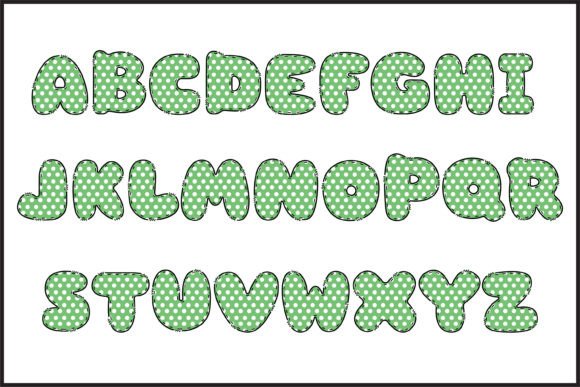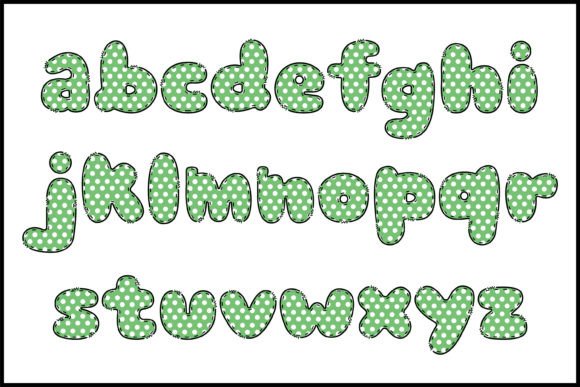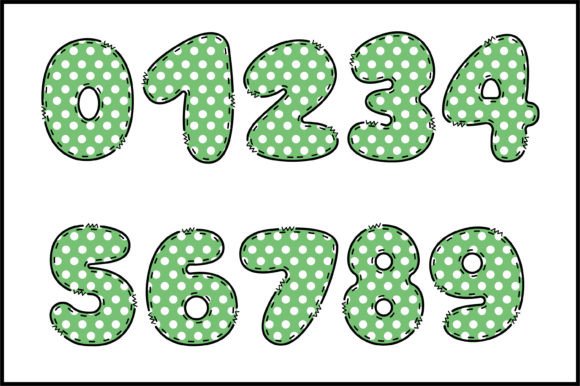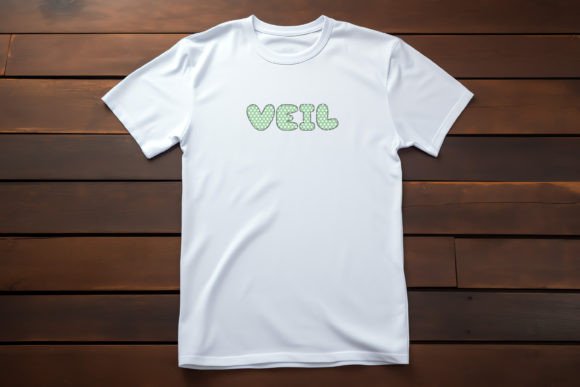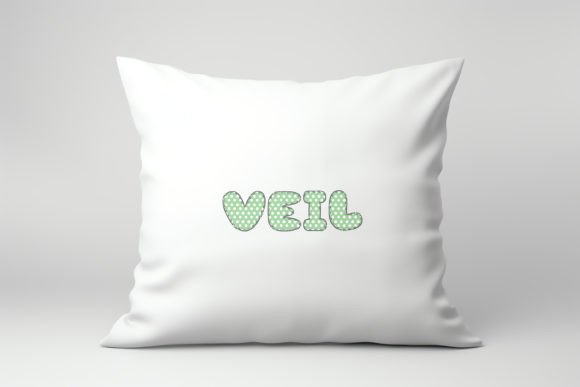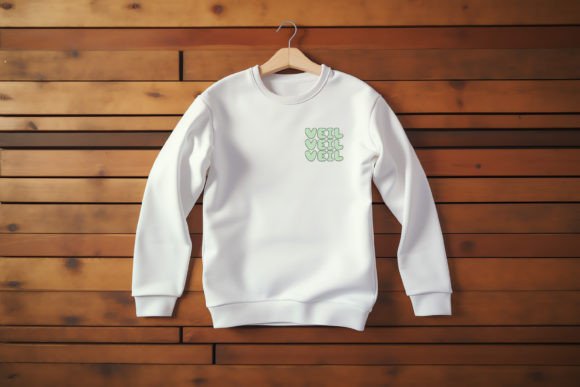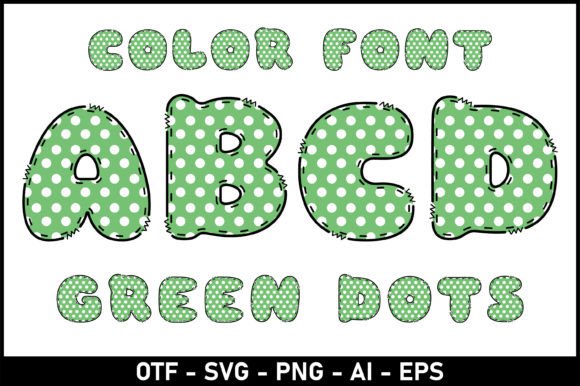
The Playful Charm of Green Dots Font: Elevate Your Designs with Whimsy
In the world of typography, fonts play a crucial role in setting the tone and personality of a design. For designers and crafters looking to add a touch of playfulness and artistic flair to their projects, Green Dots Font is an excellent choice. This delightful font, along with its variants like Red Dots, has become a popular pick for a variety of applications, from children’s books and posters to invitations and greeting cards.
What is Green Dots Font?
Green Dots Font, as the name suggests, is characterized by its distinctive dotted pattern. This unique feature gives it a charming, whimsical quality that can instantly elevate the visual appeal of any design. The font comes in various colors, including green and red, with Red Dots being particularly noted for its vibrant, eye-catching appearance.
Uses of Green Dots Font
These fonts are often used in designs that aim to convey a playful or artistic feel. Some of the most popular applications include:
- Children’s Books: Red Dots, for example, is perfect for children’s books as it is whimsical, colorful, and easy to read. This combination creates an engaging reading experience for young audiences, making it an excellent choice for storybooks, early readers, and educational materials.
- Posters: The bold and playful nature of Green Dots Font makes it a great choice for posters aimed at a younger audience or for promoting events and products with a fun, casual vibe.
- Invitations: Whether it’s a birthday party, a baby shower, or any other celebration, Green Dots Font can add a touch of whimsy and excitement to your invitations.
- Greeting Cards: For greeting cards that want to stand out from the traditional, Green Dots Font offers a refreshing and playful alternative.
Why Choose Green Dots Font?
There are several reasons why Green Dots Font and its variants have become favorites among designers and crafters:
- Unique Aesthetic: The dotted pattern gives these fonts a one-of-a-kind look that can help your designs stand out.
- Versatility: Despite their playful nature, these fonts are versatile enough to be used in a variety of projects, from digital content to print materials.
- Readability: Fonts like Red Dots are not only visually appealing but also easy to read, making them suitable for both titles and body text.
- Emotional Connection: The playful and whimsical feel of these fonts can help create an emotional connection with your audience, especially children and young adults.
Tips for Using Green Dots Font
To make the most out of Green Dots Font and its variants, consider the following tips:
- Pair with Complementary Fonts: For better visual hierarchy, pair Green Dots Font with simpler fonts for body text or other design elements.
- Experiment with Colors: While the green and red variants are popular, don’t be afraid to experiment with other colors to match your brand or design theme.
- Consider the Context: Ensure that the playful nature of the font aligns with the message and tone of your design.
Green Dots Font, with its playful and artistic vibe, offers a refreshing alternative to traditional fonts. Its versatility, readability, and unique aesthetic make it an excellent choice for a wide range of design projects. Whether you’re a designer looking to add some whimsy to your work or a crafter seeking the perfect font for your DIY projects, Green Dots Font and its variants, like Red Dots, are sure to inspire creativity and bring a smile to your audience’s faces.